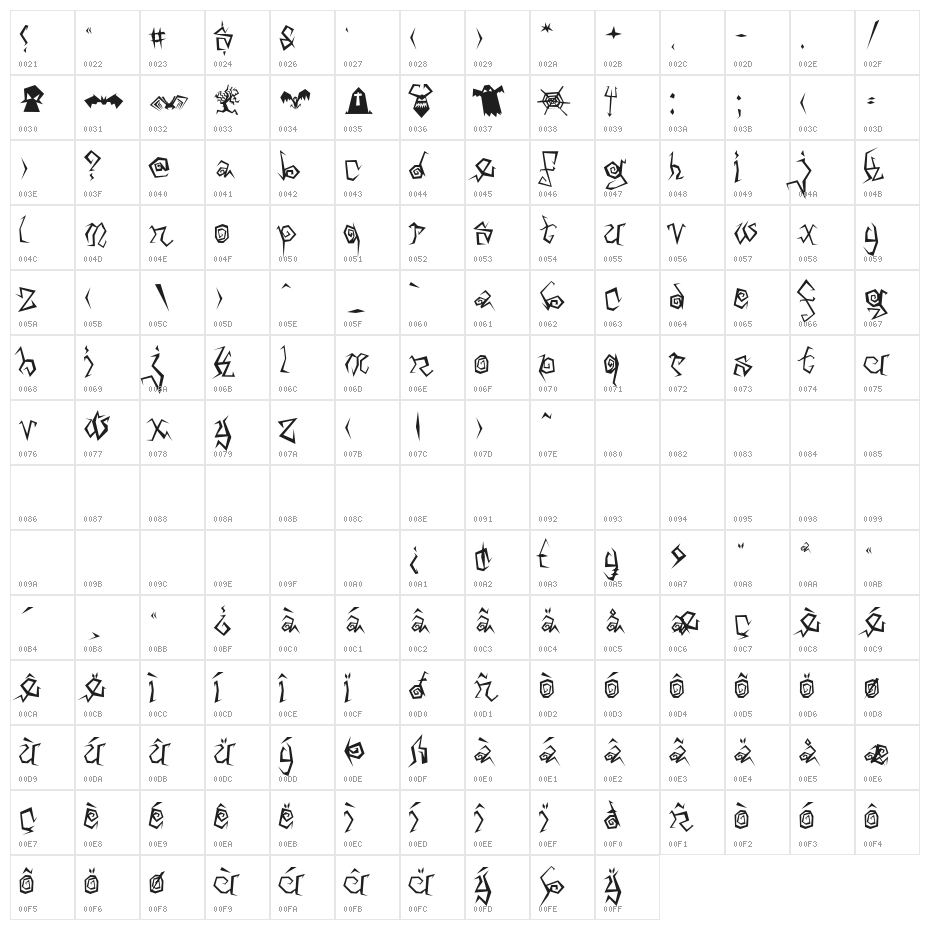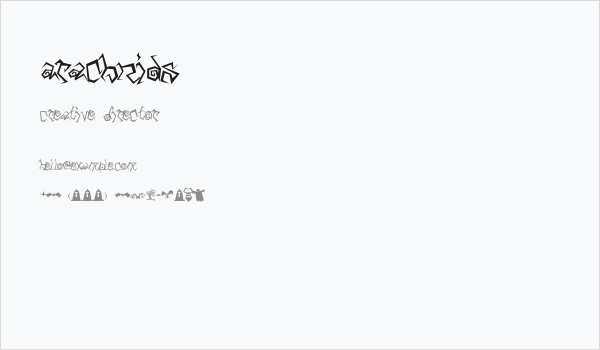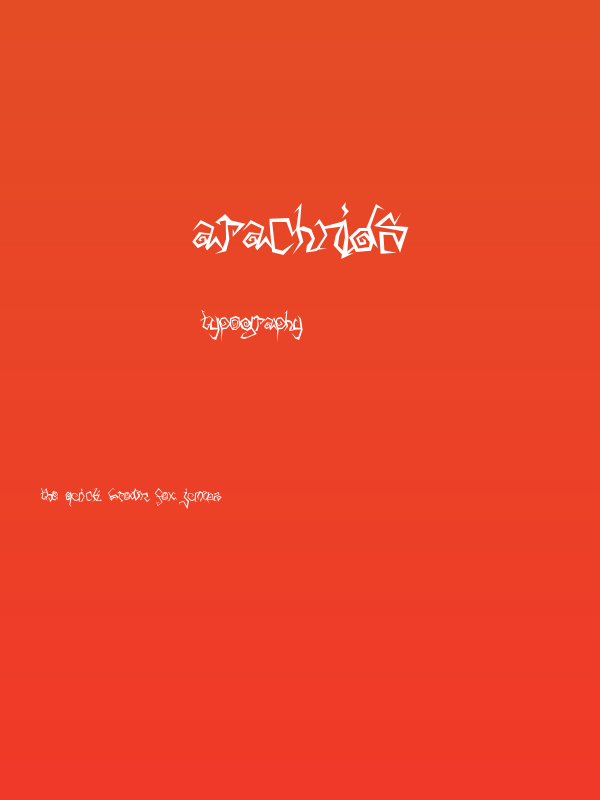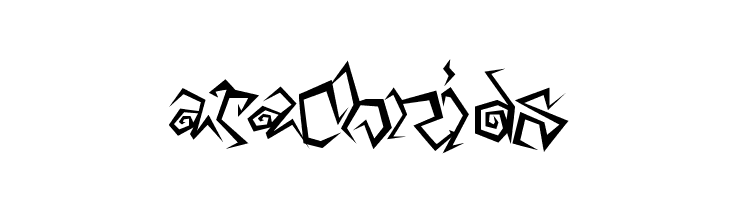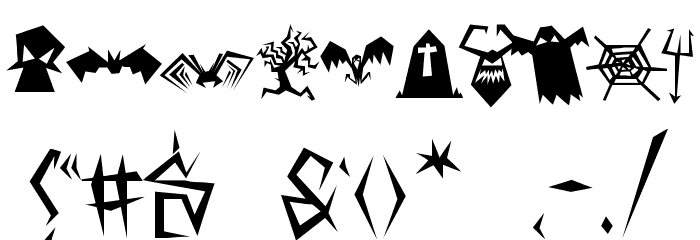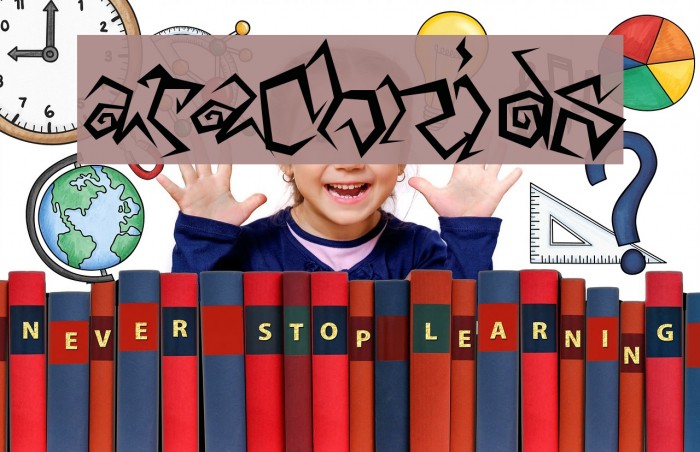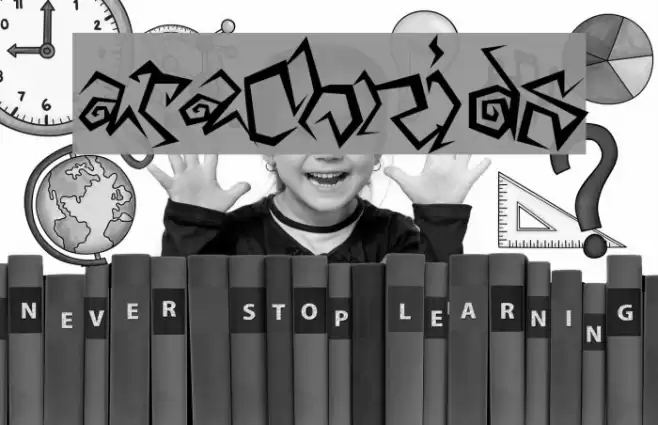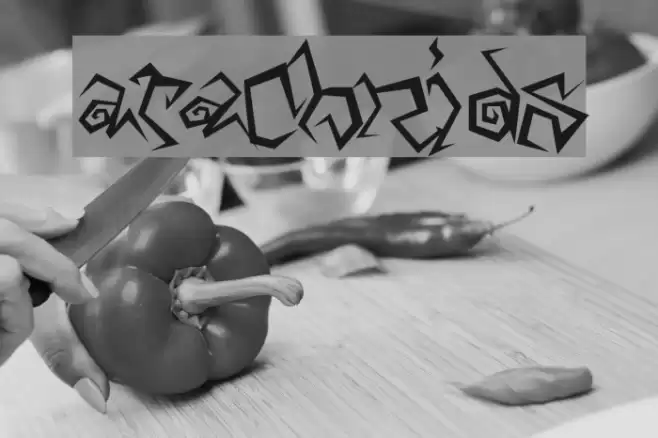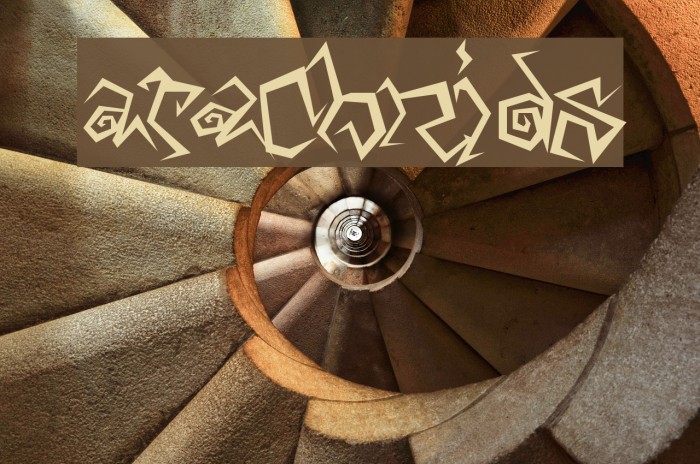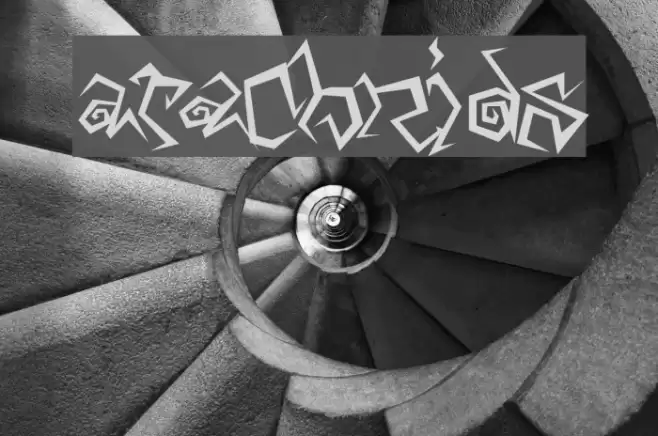
Arachnids Font
Arachnids Description
This font features a highly decorative and angular design, reminiscent of spider webs and gothic motifs. Each character is crafted with sharp, jagged edges and intricate details, creating a sense of mystery and darkness. The uppercase and lowercase letters maintain a consistent style, with exaggerated angles and pointed ends. The numbers and special characters continue this theme, incorporating unique shapes and symbols that enhance the font's eerie and dramatic appearance. This font is ideal for projects that require a bold and unconventional look, such as Halloween-themed designs or horror movie posters.
| Proposed Projects | Perfect for Halloween designs, horror movie posters, themed events, or any project needing a dramatic, eerie touch. |